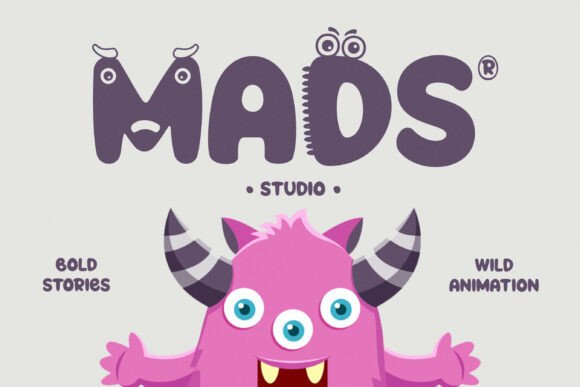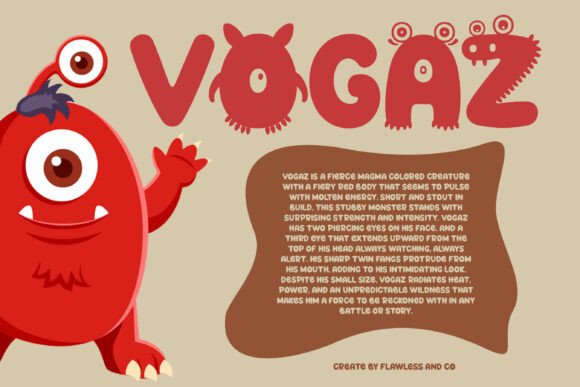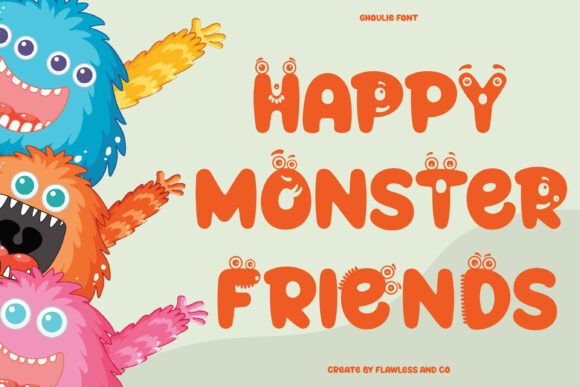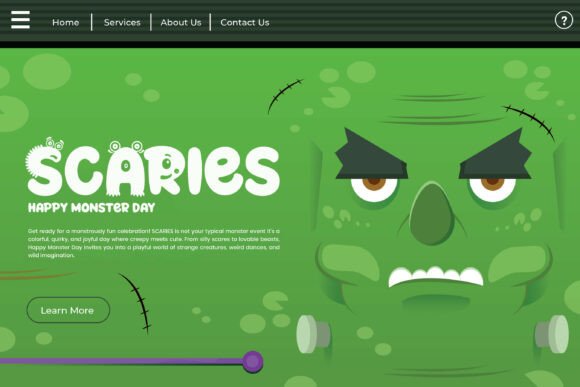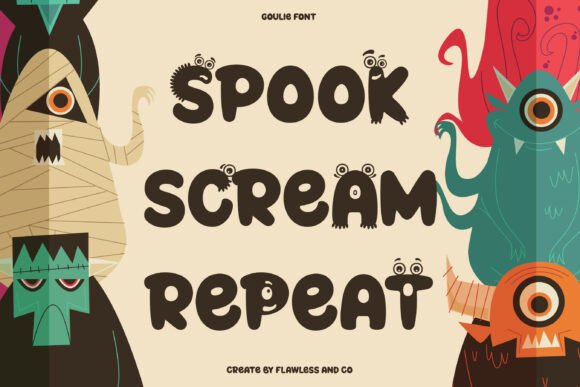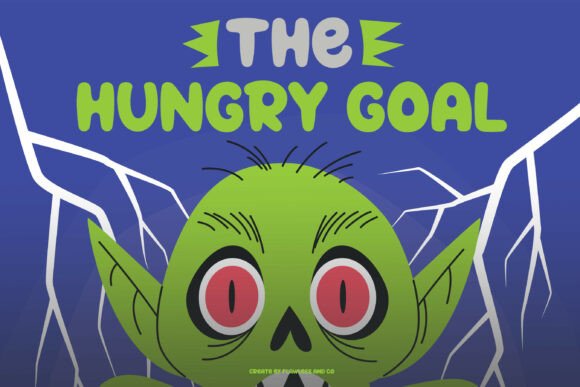
Unleash the Fun with Ghoulie Font: The Playful Monster Font for Your Creative Projects
Are you looking for a font that can add a touch of whimsy and playfulness to your designs? Look no further than Ghoulie Font, a quirky and charming monster font that’s perfect for a variety of creative projects. In this article, we’ll dive into the unique features of Ghoulie Font and explore how it can bring fun and personality to your work.
What is Ghoulie Font?
Ghoulie Font is a playful and quirky monster font that’s full of charm and cheeky personality. Each letter feels alive, bouncing with color and mischievous energy, as if little monsters are peeking out from the alphabet. With its rounded, friendly shapes and monster-inspired details, Ghoulie brings fun to every project.
Unique Features of Ghoulie Font
Ghoulie Font has several unique features that make it stand out from other fonts. Here are a few:
- Playful and Quirky Design: Ghoulie Font has a playful and quirky design that’s perfect for adding a touch of whimsy to your projects.
- Monster-Inspired Details: The font features monster-inspired details, such as little monsters peeking out from the alphabet, that add to its charm and personality.
- PUA-Encoded: Ghoulie font is PUA-encoded, allowing effortless access to all glyphs, swashes, and alternate characters.
- Rounded and Friendly Shapes: The font has rounded, friendly shapes that make it perfect for kids’ books, cartoons, games, and other projects that require a fun and playful touch.
Use Cases for Ghoulie Font
Ghoulie Font is perfect for a variety of creative projects, including:
- Kids’ Books: The font’s playful and quirky design makes it perfect for kids’ books, adding a touch of fun and personality to your story.
- Cartoons and Animations: Ghoulie Font is great for cartoons and animations, bringing your characters to life with its monster-inspired details and playful energy.
- Games: The font’s fun and quirky design makes it perfect for games, adding a touch of personality to your game’s UI and marketing materials.
- Party Invitations: Ghoulie Font is great for party invitations, adding a touch of silly spookiness to your designs.
Benefits of Using Ghoulie Font
Using Ghoulie Font in your projects offers several benefits, including:
- Adds Fun and Personality: The font’s playful and quirky design adds fun and personality to your projects, making them stand out from the crowd.
- Perfect for Kids’ Projects: Ghoulie Font is perfect for kids’ projects, adding a touch of whimsy and playfulness that’s sure to delight young audiences.
- Easy to Use: The font is PUA-encoded, making it easy to access all glyphs, swashes, and alternate characters.
In conclusion, Ghoulie Font is a playful and quirky monster font that’s perfect for adding a touch of fun and personality to your creative projects. With its unique features, use cases, and benefits, Ghoulie Font is a great choice for designers and crafters looking to bring a touch of whimsy and playfulness to their work. So why not give Ghoulie Font a try and see how it can bring your projects to life?
- Playful and quirky monster font
- PUA-encoded for easy access to glyphs, swashes, and alternate characters
- Rounded, friendly shapes and monster-inspired details
- Perfect for kids’ books, cartoons, games, party invitations, and more